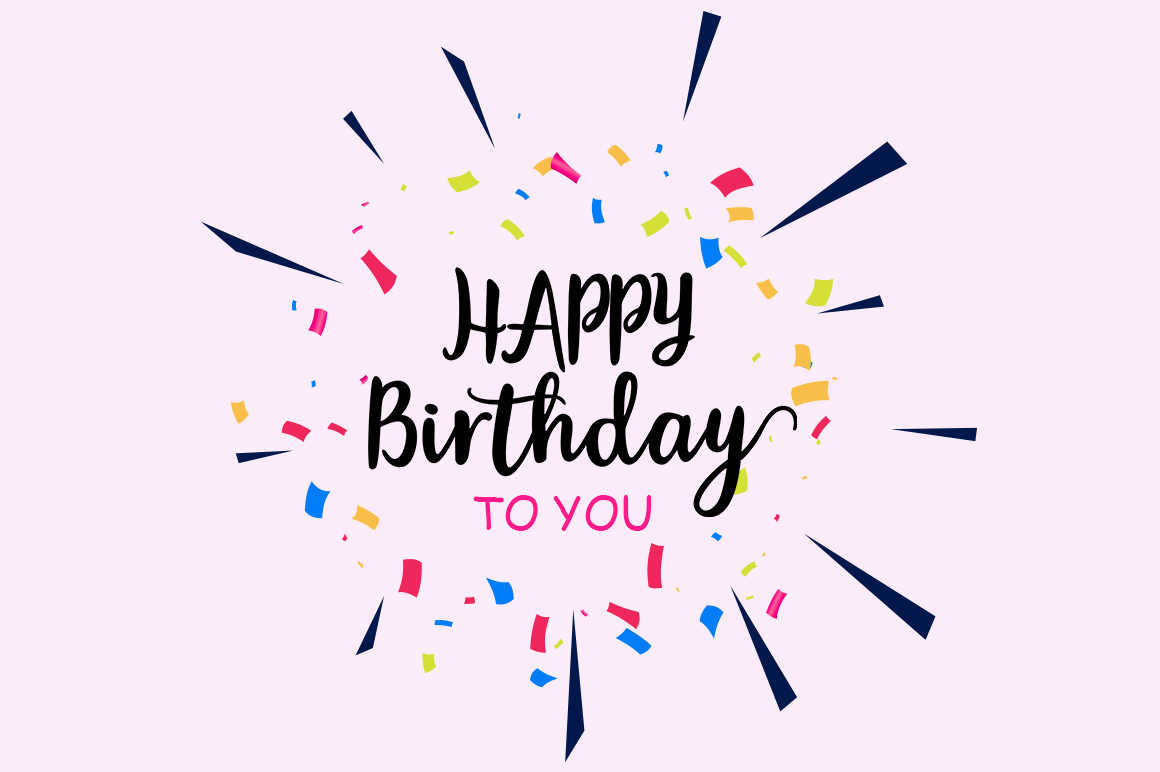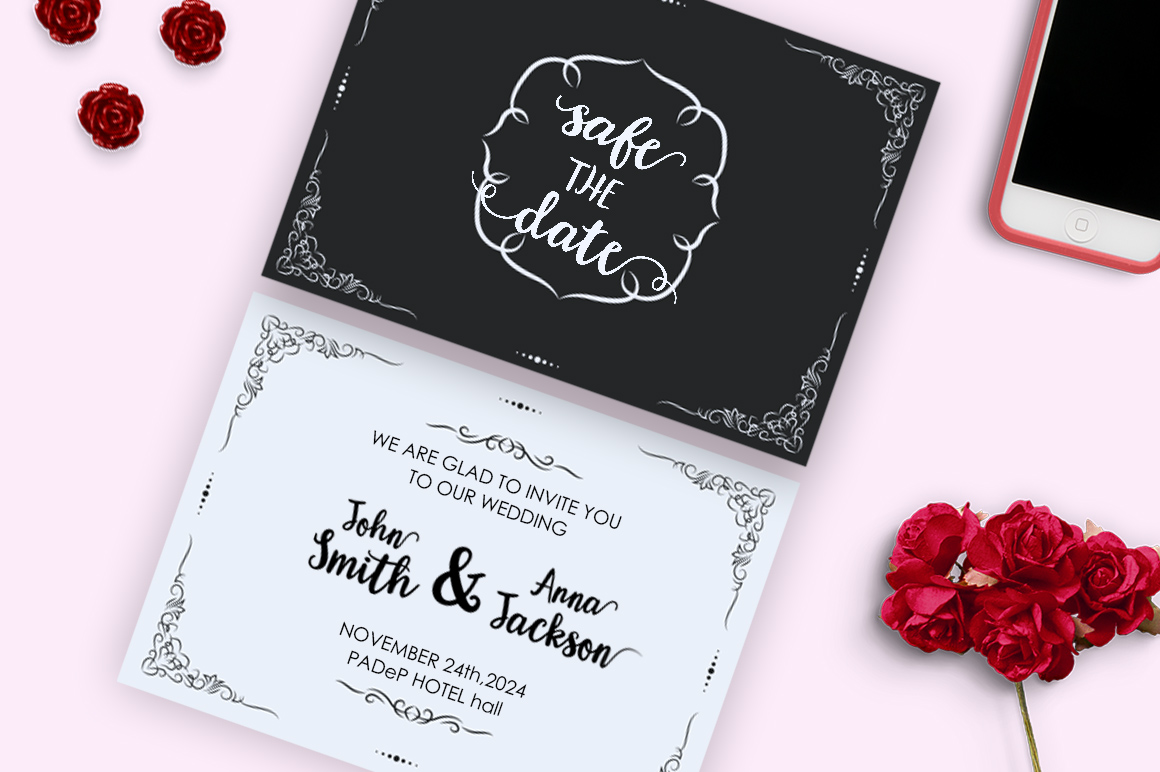
Blossom Script Font
db-ku.com - Script & Handwritten -- Blossom Script is a modern typeface that features stunning alternate characters, such as initial and end swashes.